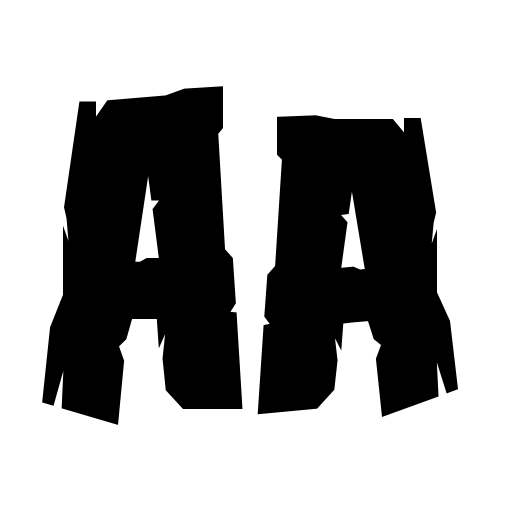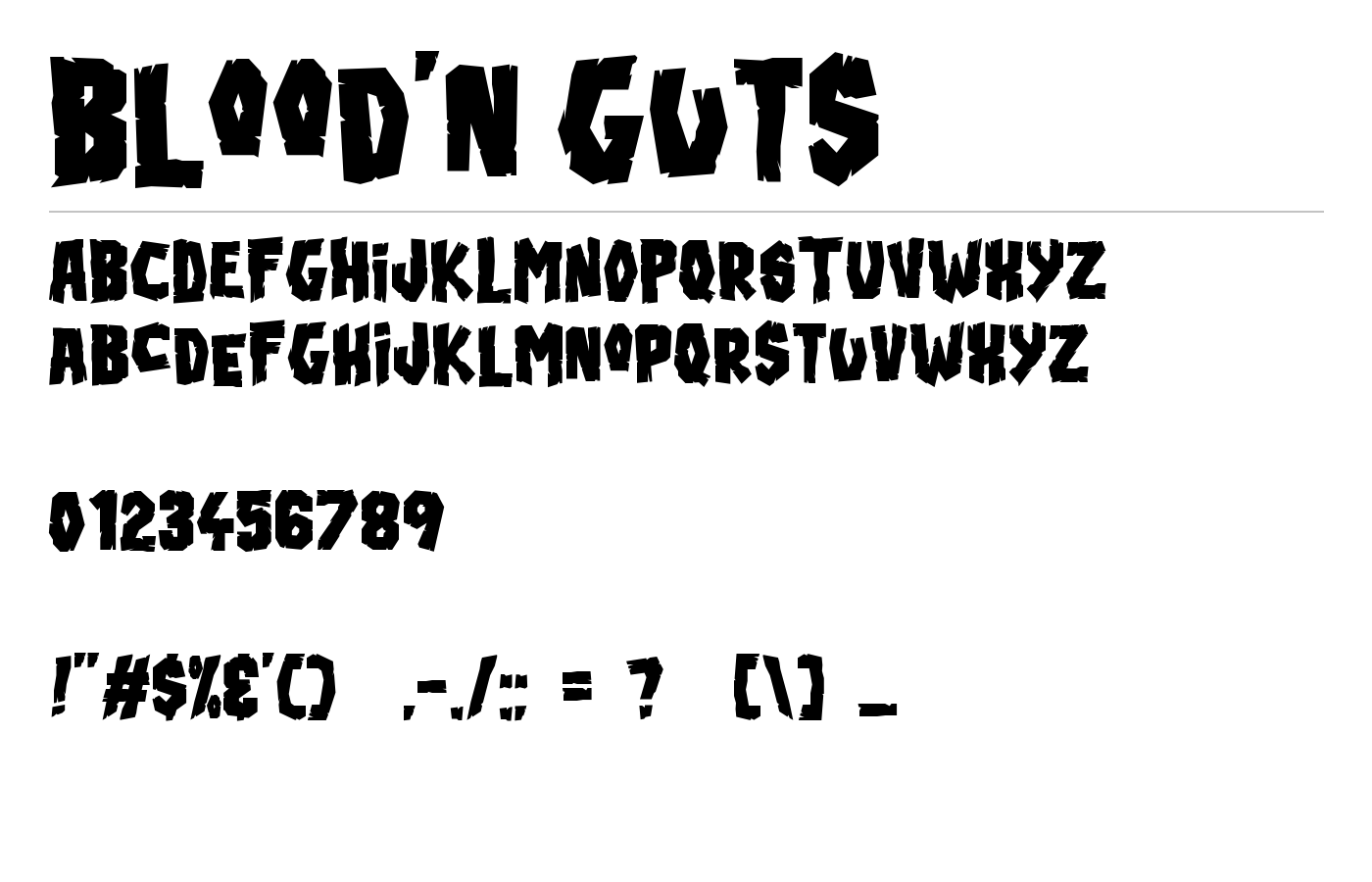
Blood'n Guts is a bold, rough-edged display font with a jagged, distressed style that conveys a raw, intense energy. Its chunky, irregular shapes and strong presence make it perfect for horror-themed designs, edgy posters, or eye-catching headlines where a gritty, unsettling vibe is desired. This font works best in creative projects looking to evoke excitement, danger, or a rebellious attitude.
About Blood'n Guts Font